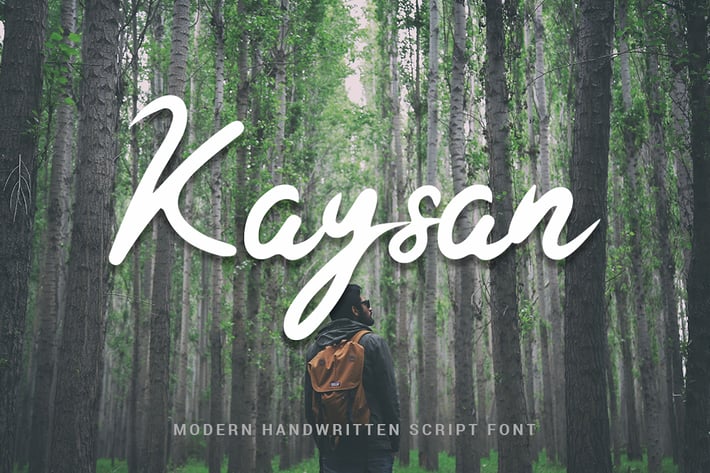
Kaysan - Modern Handwritten Script Font
Introducing: Kaysan, A luxury, modern handwritten font with a personal charm. Kaysan is perfect for photography, watermark, social media posts, advertisements, logos & branding, invitation, product designs, label, stationery, wedding designs, product packaging, special events or anything that need handwriting taste.
+ Multilingual Support
+ PUA Encoded Characters